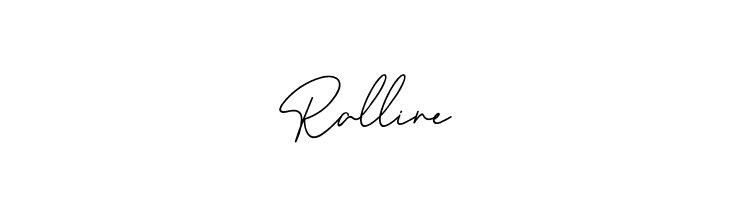
A decorative cursive font with elegant loops and swashes.
A lively, expressive handwritten font with fluid strokes and playful aesthetics.
A whimsical and elegant cursive font with decorative flourishes.